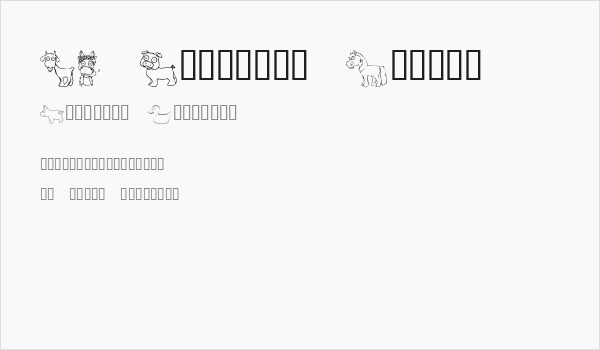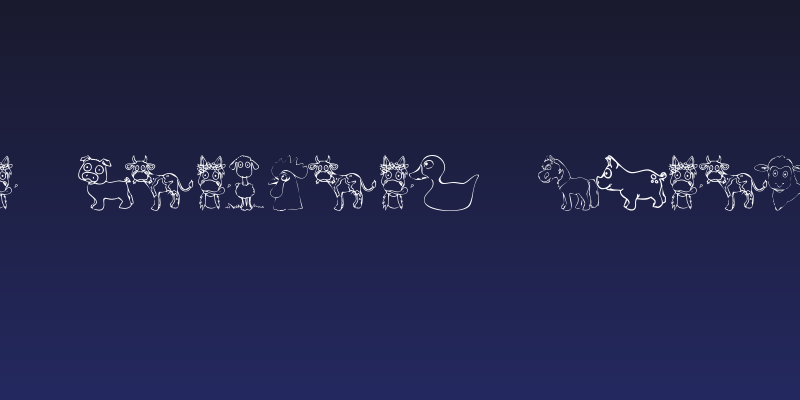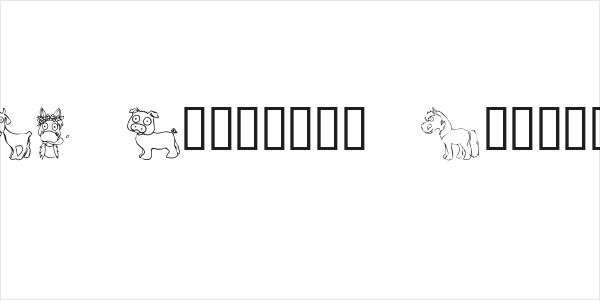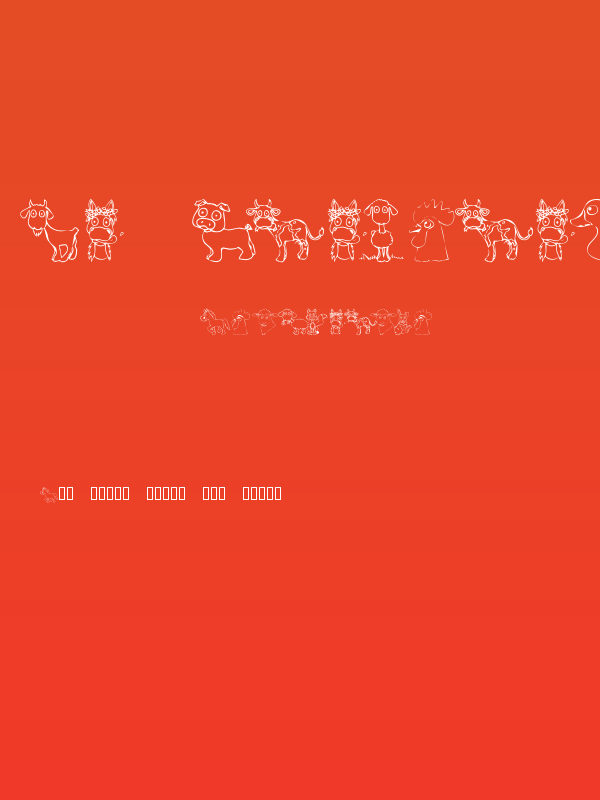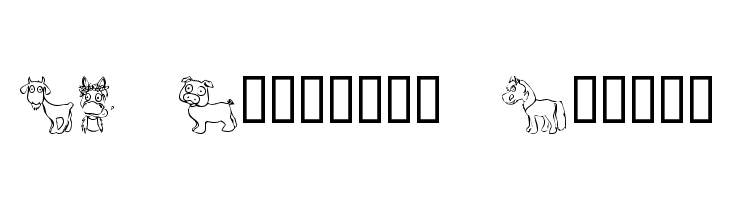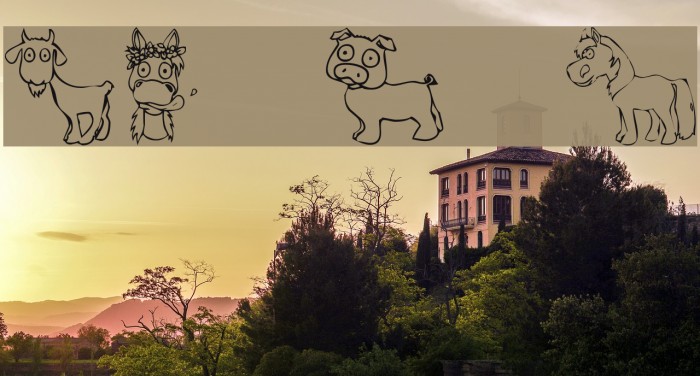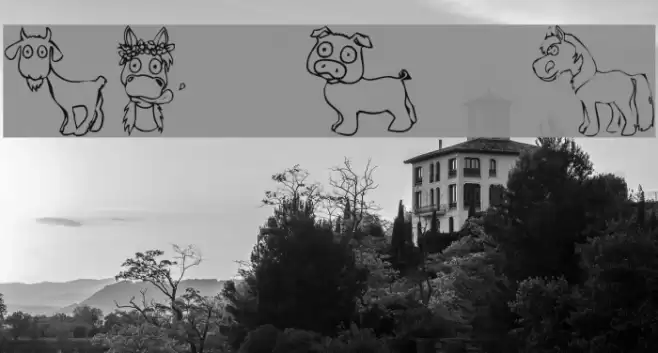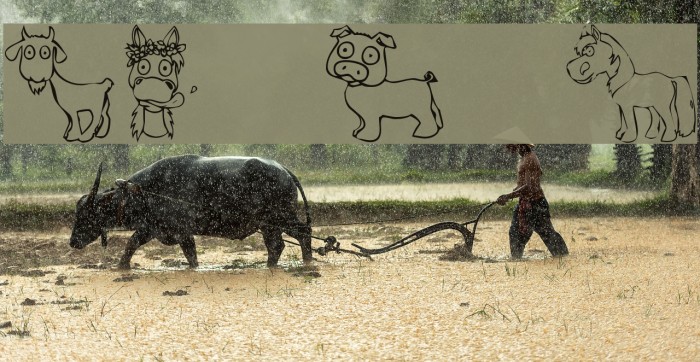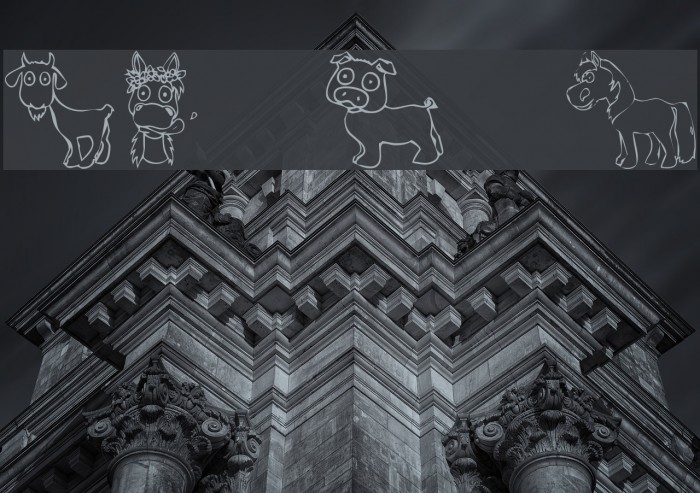
KR Barnyard Scraps Font
This playful and whimsical font features a series of charming barnyard animal illustrations, each character represented by a unique and humorous depiction of farm animals. The style is highly decorative, with intricate line work that captures the quirky personalities of each animal. The font is not designed for traditional text but rather for creative projects where a fun and engaging visual element is desired. The characters are detailed and expressive, making them ideal for children's projects or themed designs that require a touch of humor and creativity.
| Use Case | Logos, Illustrations, Themed Designs |
| Proposed Projects | Ideal for children's books, educational materials, themed party invitations, and playful branding projects. |